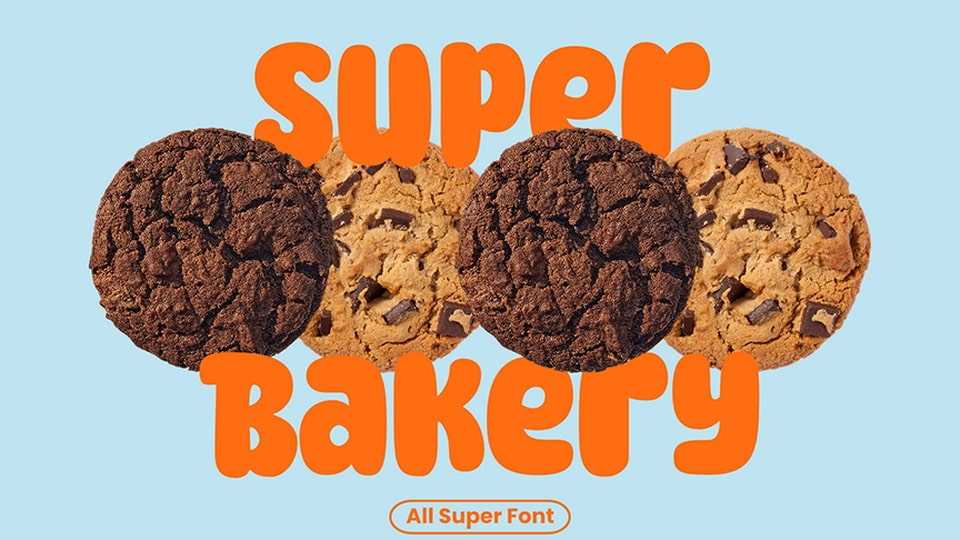
Download Super Bakery font, a warm and smooth hand-drawn typeface that’s perfect for all your bakery-inspired designs. With its soft, rounded curves and cozy letterforms, Super Bakery font evokes the comforting feel.